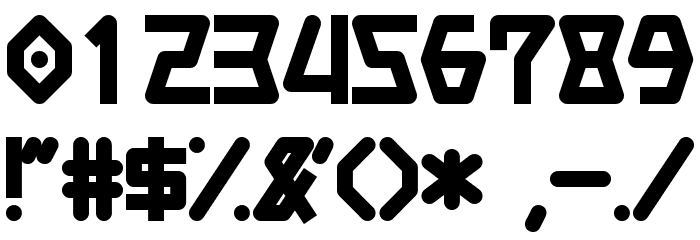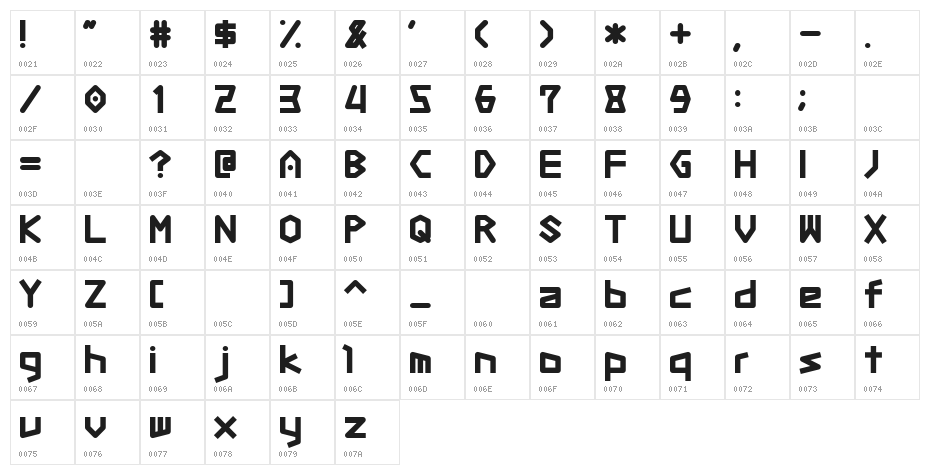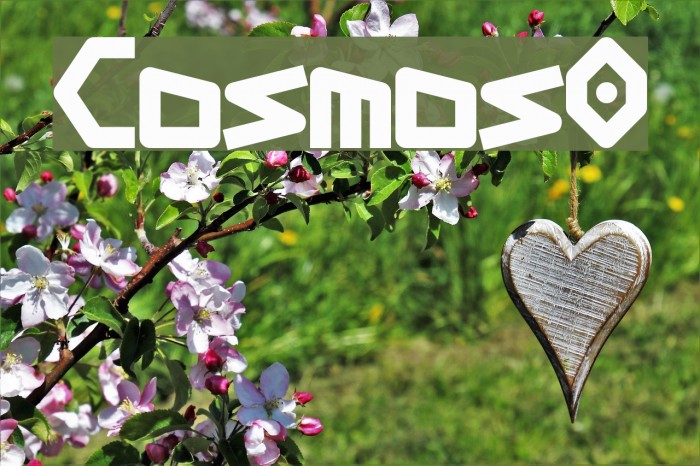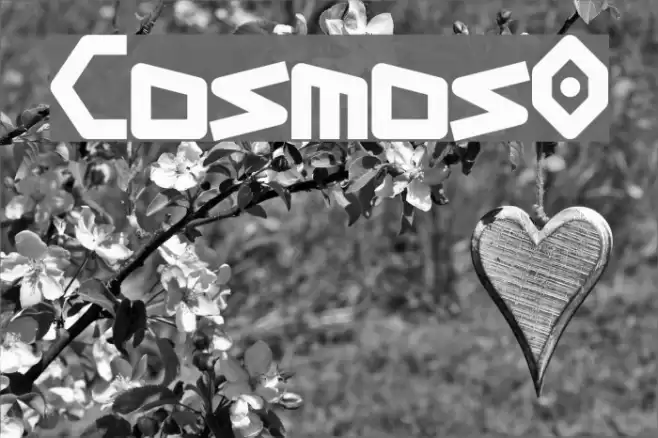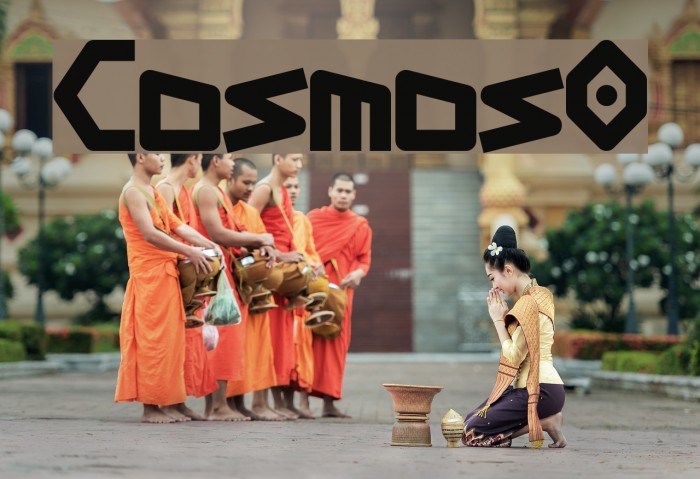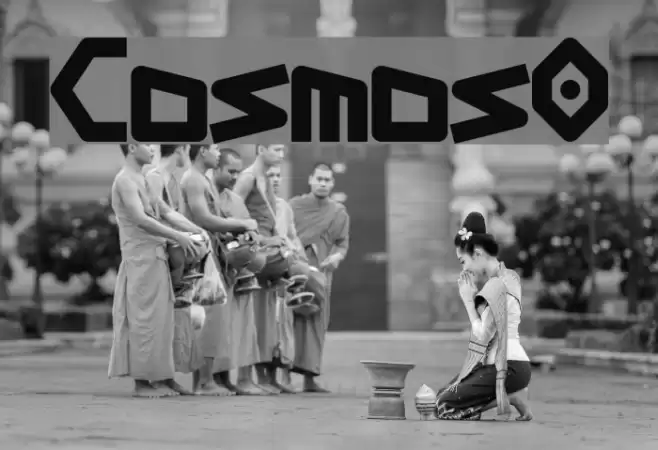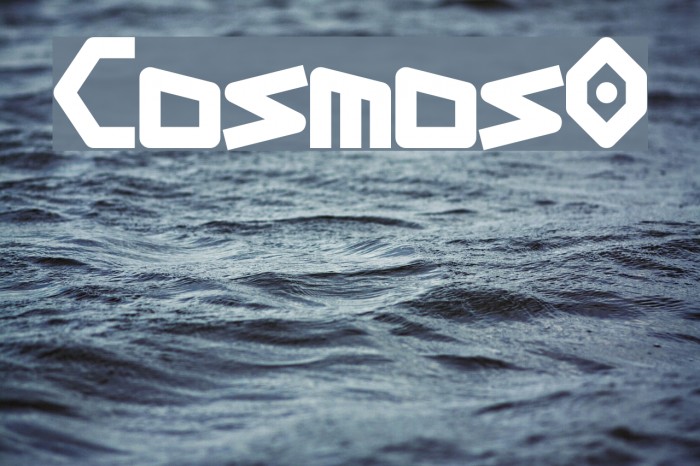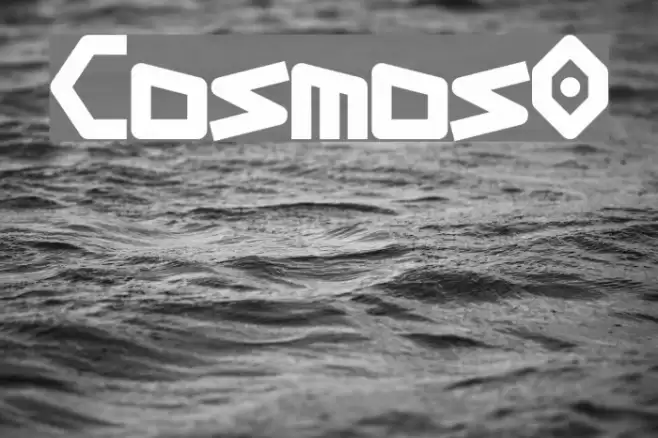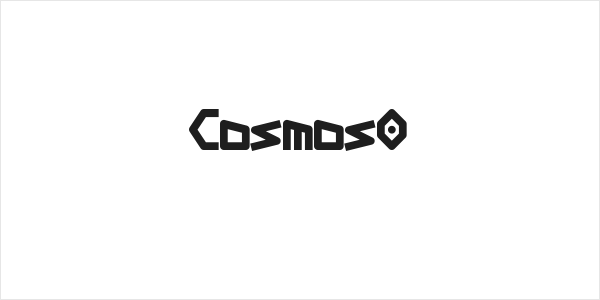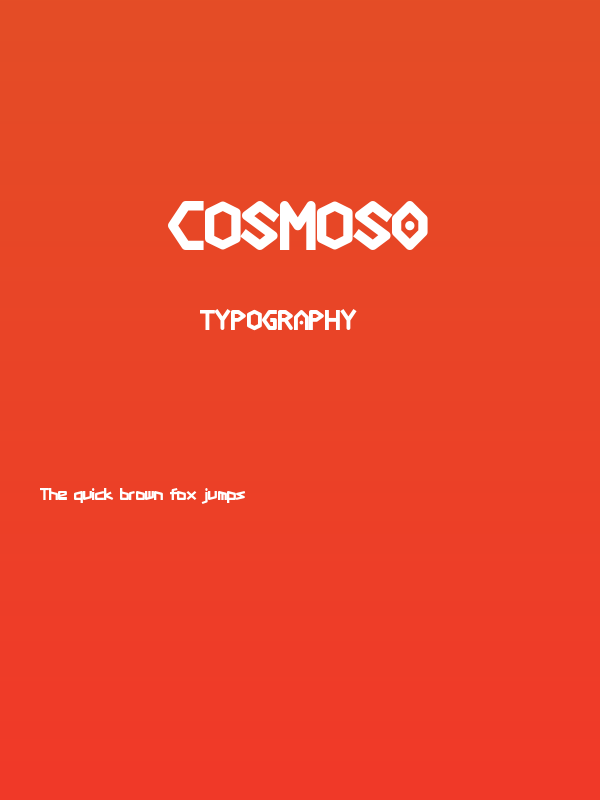
Cosmos0 Font
Cosmos0 Description
This font features a bold, geometric design with a futuristic aesthetic. The characters are constructed with thick, angular lines, giving them a strong and impactful presence. The uppercase letters are particularly striking, with a consistent height and width that creates a uniform appearance. The lowercase letters maintain the same geometric style, ensuring readability while adding a unique flair. Numbers and special characters are designed to match the boldness and angularity of the alphabet, making them suitable for a variety of uses. The font's overall style is modern and eye-catching, ideal for projects that require a strong visual impact.
| Proposed Projects | Ideal for sci-fi themed projects, technology branding, video game titles, and futuristic posters. |